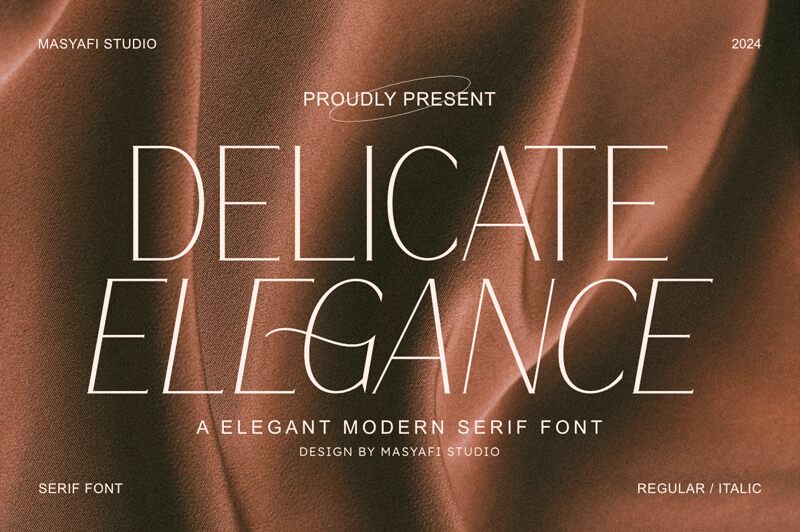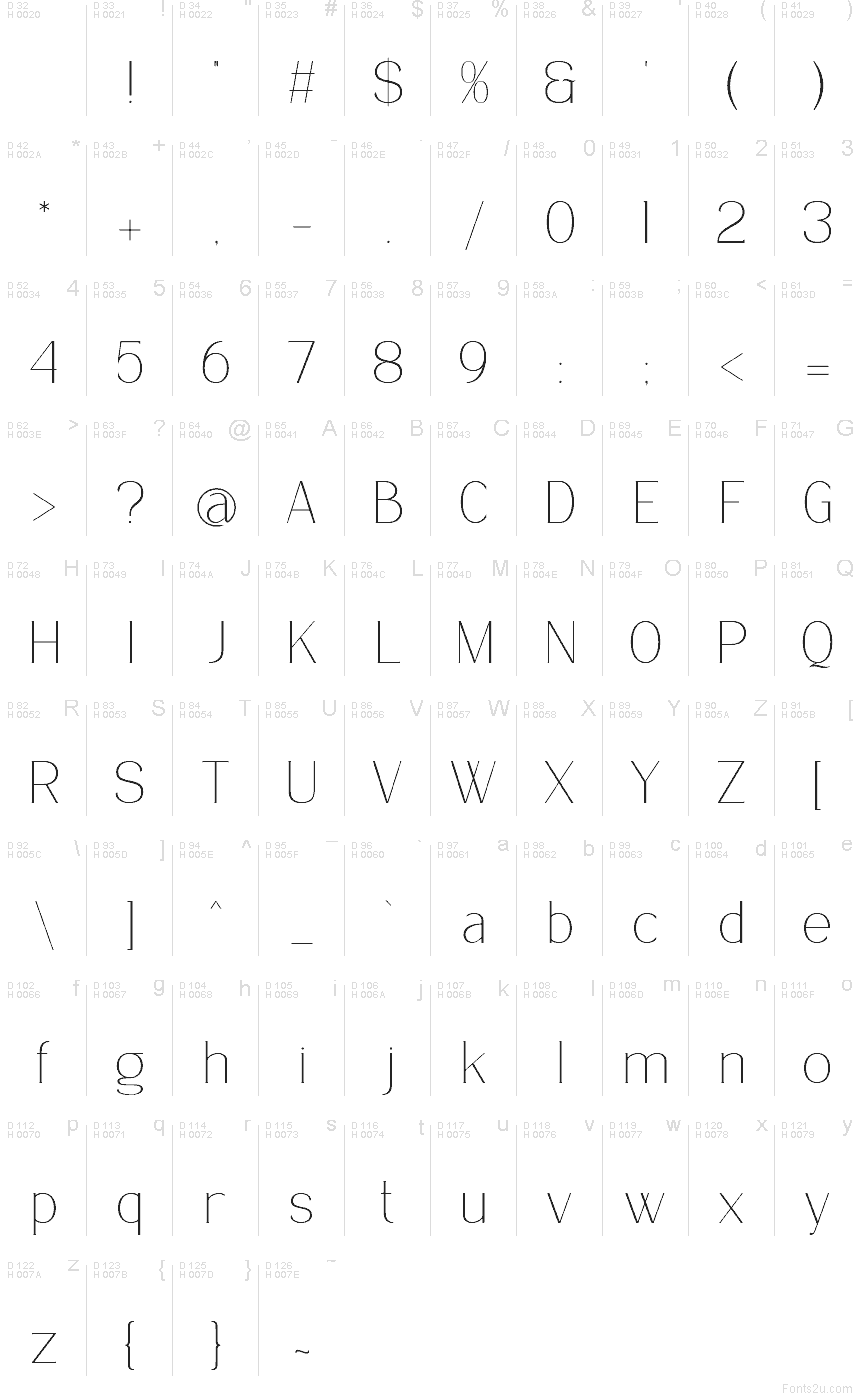
Delicate Elegance by Masyafi Studio is a free minimalist Art Deco display font with a light, jewelry-like rhythm. The letters lean on tall, airy strokes and near-perfect circular forms, while details like the high crossbar and tiny dot keep it feeling poised rather than severe.
It suits fashion branding, beauty packaging, boutique logos, magazine mastheads, and short cover lines where a few letters can do the styling work. As a free font, it also fits title cards, monograms, and refined social graphics, especially when you want a sleek old-glamour note without anything heavy or ornate.
Delicate Elegance
Masyafi Studio